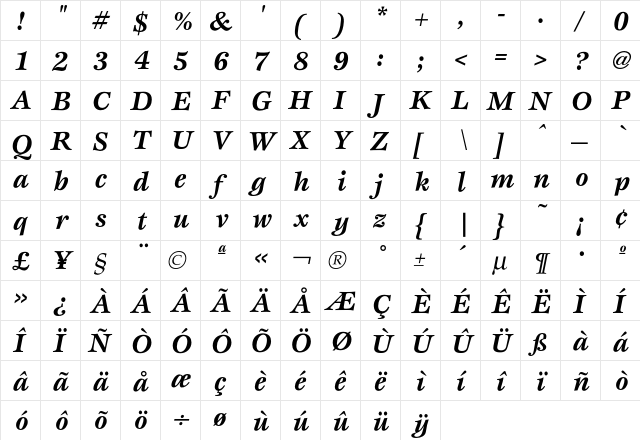
Esprit BoldItalic
Design Context for Esprit Typeface
Esprit is a composed and adaptable typeface that performs quietly and consistently across a wide range of design contexts. The slanted form adds forward momentum and visual energy. The heavy weight commands attention and anchors typographic hierarchies.
Pro Tip: Try Esprit for annotation and caption copy alongside an upright companion — the contrast in angle creates a dynamic but ordered typographic system.